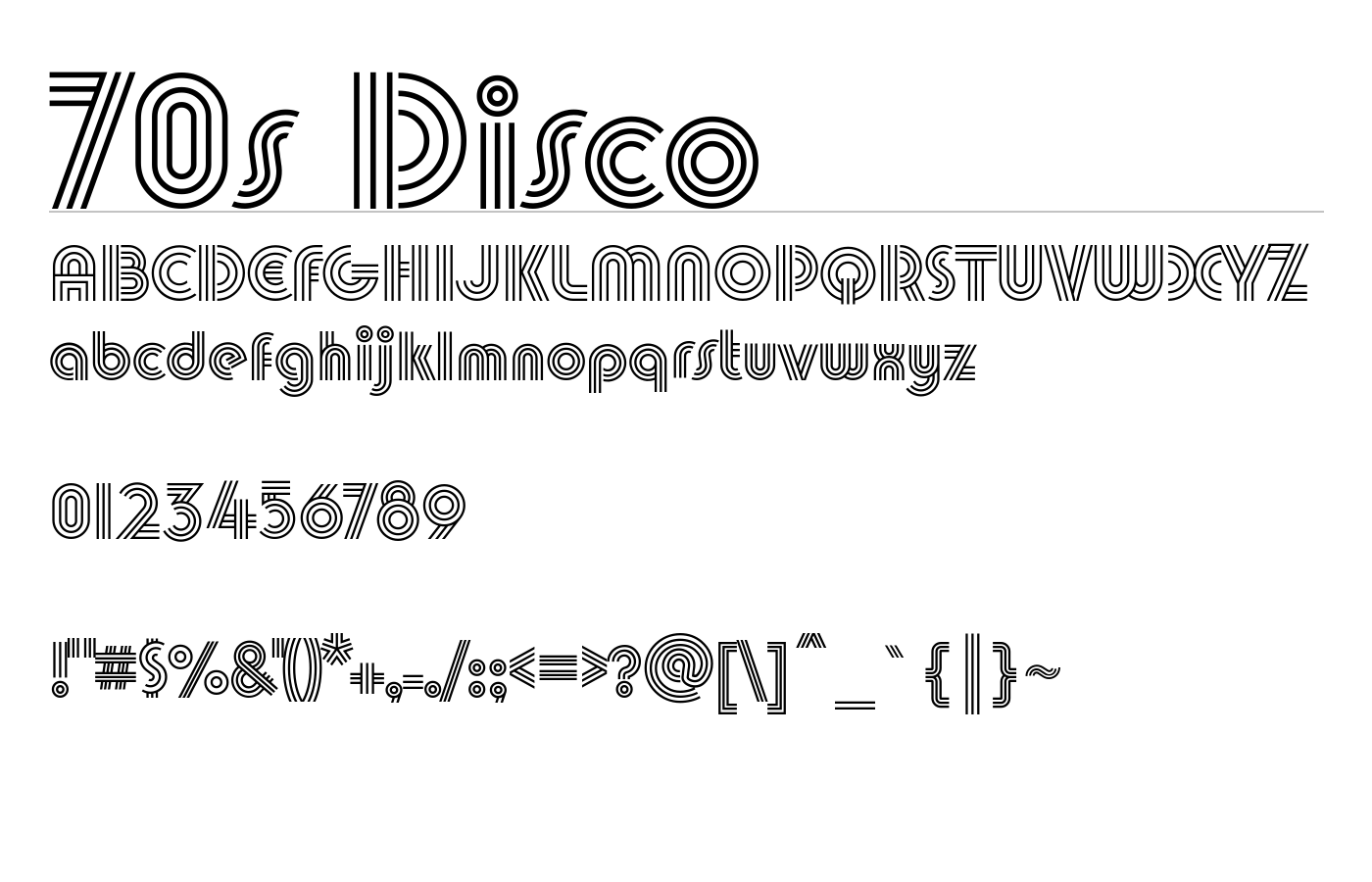
70s Disco Font is a playful and bold display typeface that captures the vibrant energy of the disco era with its layered, multi-line strokes and rounded letterforms. Its high contrast and geometric shapes create a lively, retro vibe that works perfectly for eye-catching headlines, branding, and themed designs. This font is ideal for projects looking to evoke a fun, nostalgic, and stylish 1970s feel.
70s Disco Font
About 70s Disco Font
| Font family | 70s Disco Font |
| Designer | Galdino Otten 55 83 99806 7774 |